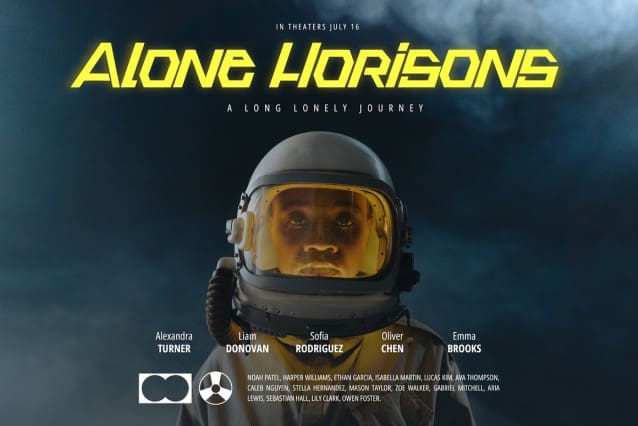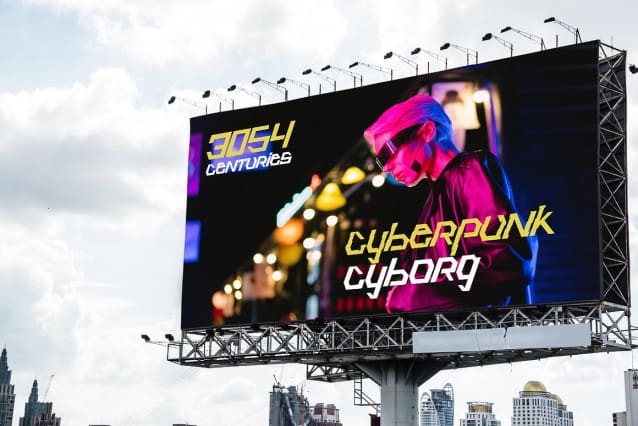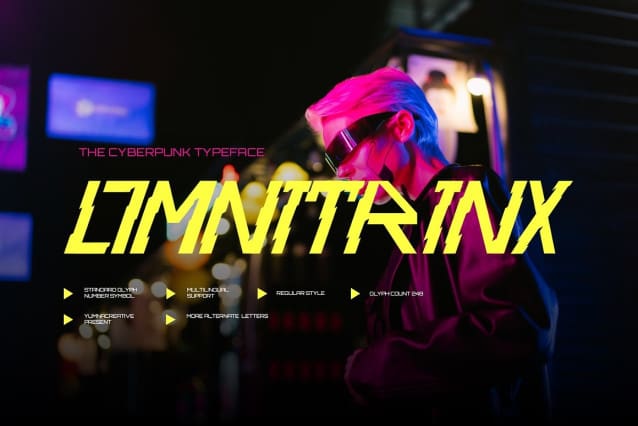
Omnitrinx Techno Font
Omnitrinx Techno Font is an authentic modern cyberpunk font that is perfect for professional and product branding needs. This font is suitable for any branding project such as quotes, logos, blog headers, posters, ribbons, letters, invitations, stationery, etc… It is designed to be versatile and flexible that can be used on a variety of projects and mediums. extraordinary in a variety of contexts.